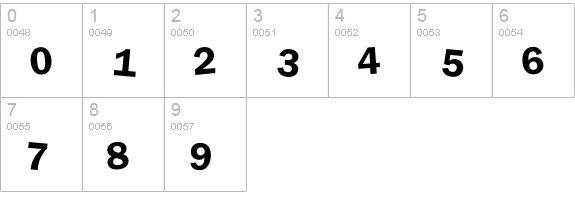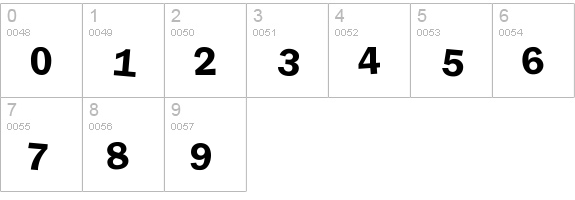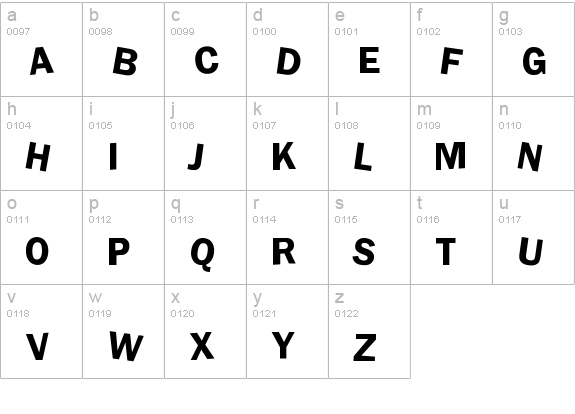
dDAFTt-UPPERcase Font Details
Introducing the dDAFTt-UPPERcase font - a bold and eye-catching typeface that exudes modernity and sophistication. With its sharp lines and distinctive uppercase letters, this font commands attention and adds a touch of contemporary flair to any design project. Perfect for headlines, logos, and branding materials, the dDAFTt-UPPERcase font is versatile and dynamic, making it a must-have for designers looking to make a statement. Best of all, the dDAFTt-UPPERcase font is available for free download at FontsMarket.com. Take advantage of this fantastic offer and enhance your projects with this striking font today. Stand out from the crowd and make a lasting impression with the dDAFTt-UPPERcase font. Download it now and let your creativity soar!